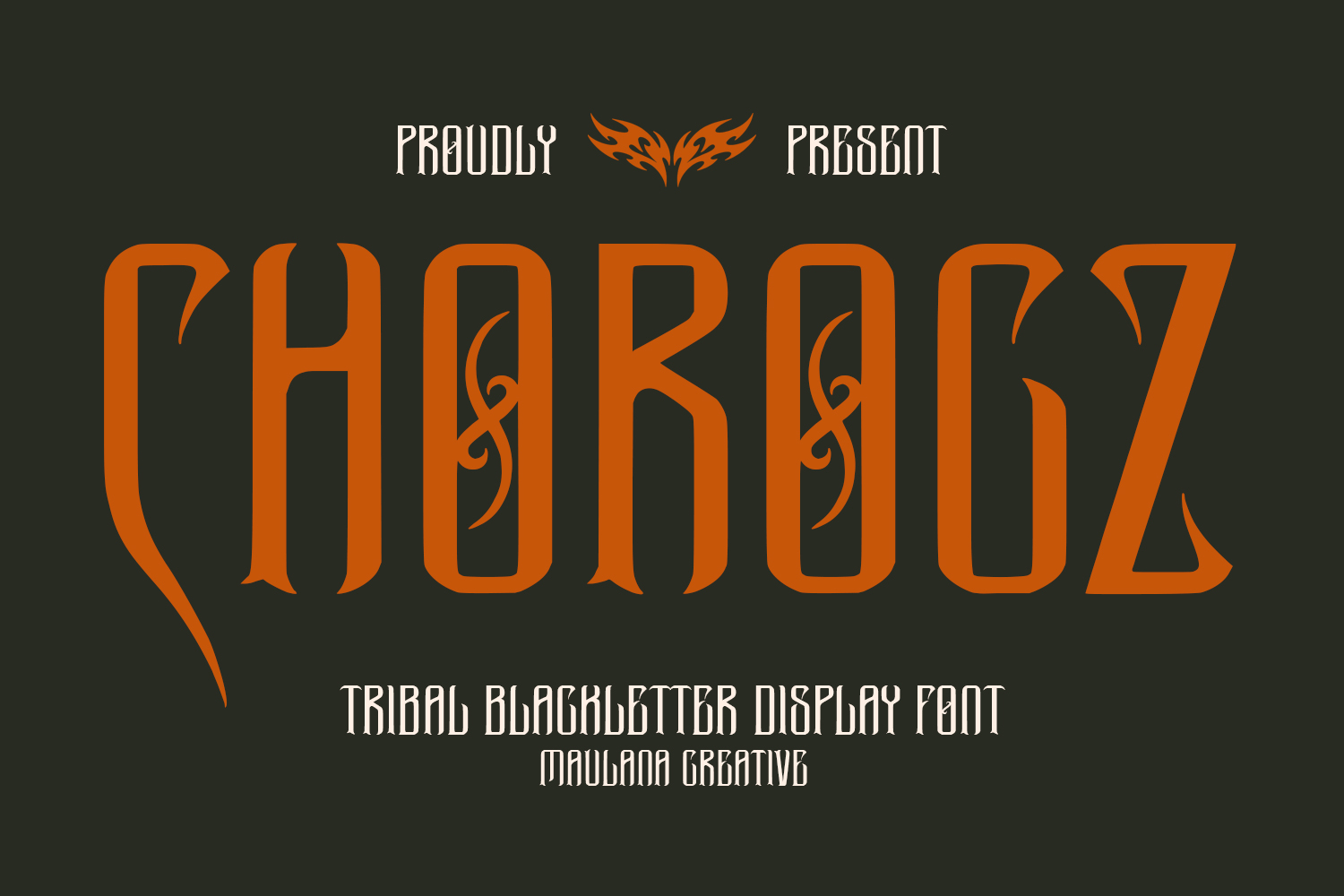
Chorocz Tribal Blackletter Display Font
Chorocz is a fierce and commanding display font that bridges the gap between traditional Gothic blackletter and modern tribal aesthetics. Featuring razor sharp edges, elongated strokes, and intricate decorative alternates, this typeface captures a raw, aggressive energy.
It is perfectly suited for projects that require a hardcore or dark edge, such as metal band logos, apparel, tattoo inspired branding, horror movie, and grunge style editorial layouts. With its unique character alternates and multilingual support, Chorocz provides the versatility needed to create truly custom, hell born typography.